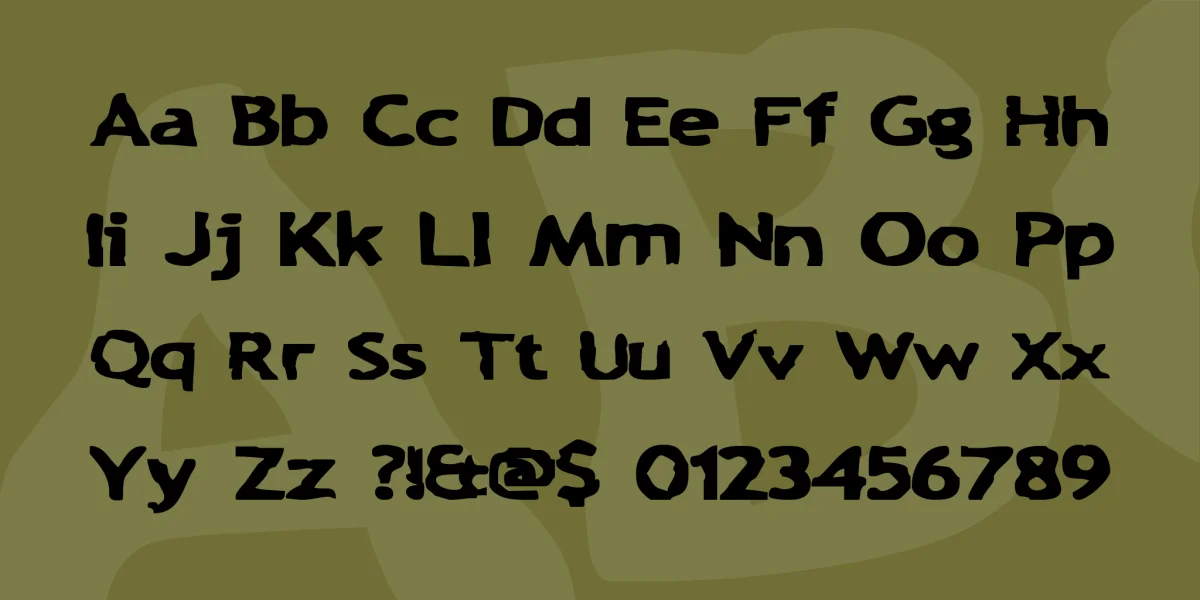
Who doesn't love yummy cookie dough, when it's thick and goopy and crunchy because the sugar is still crystallized? This font is kind of thick, but I'm not too sure about the goopy and crunchy part.